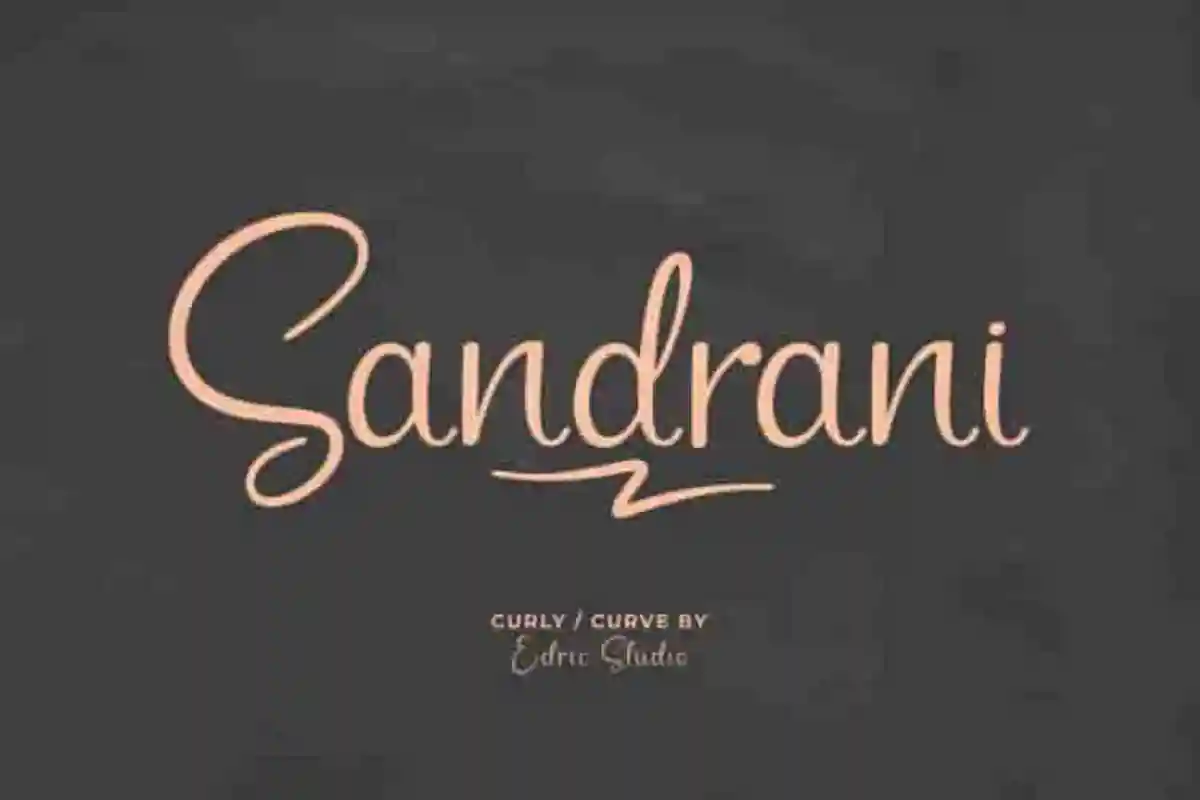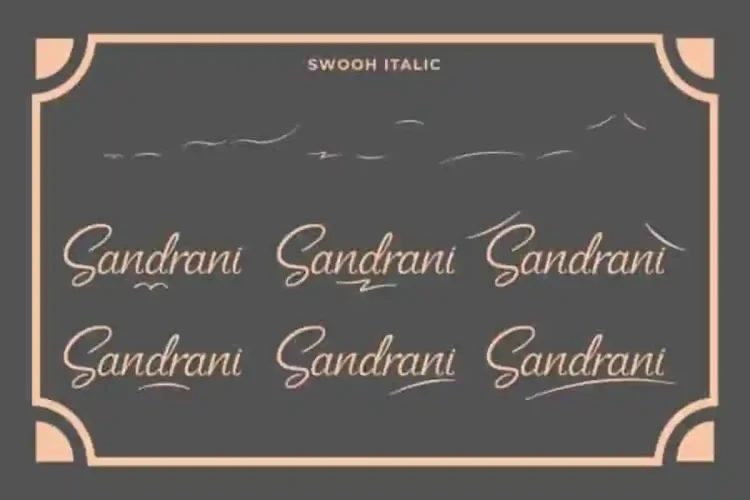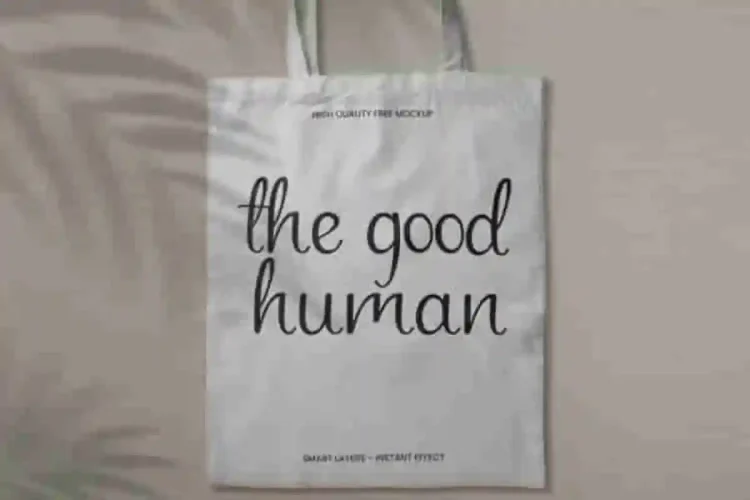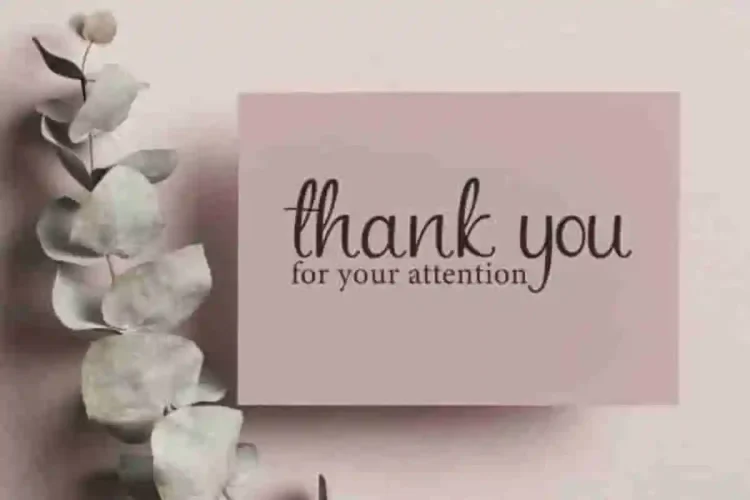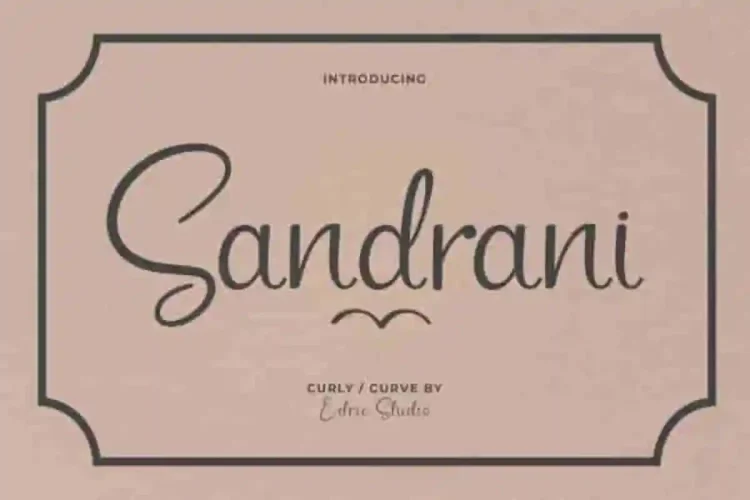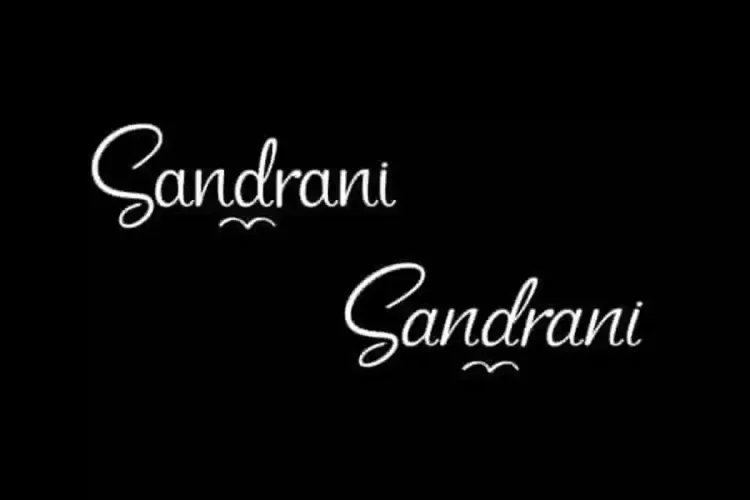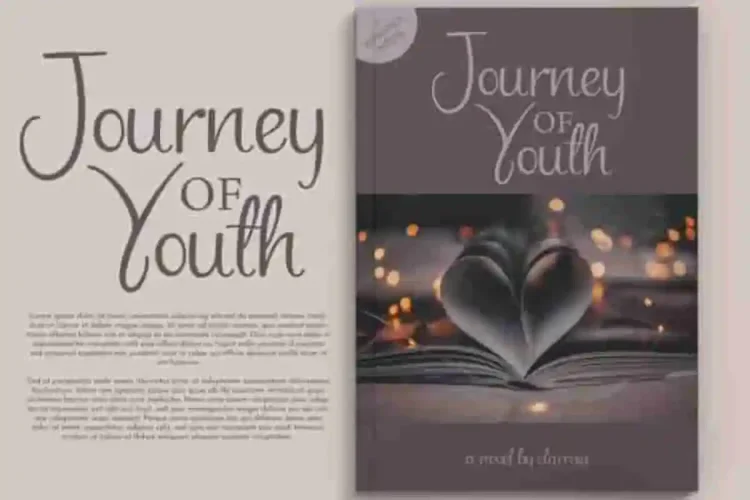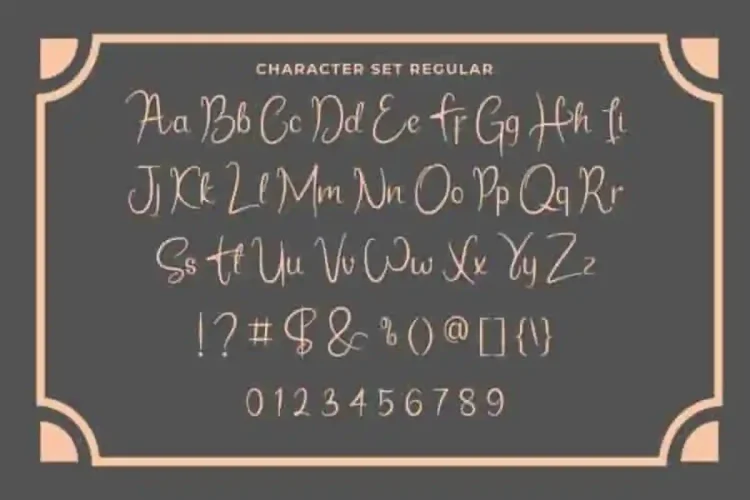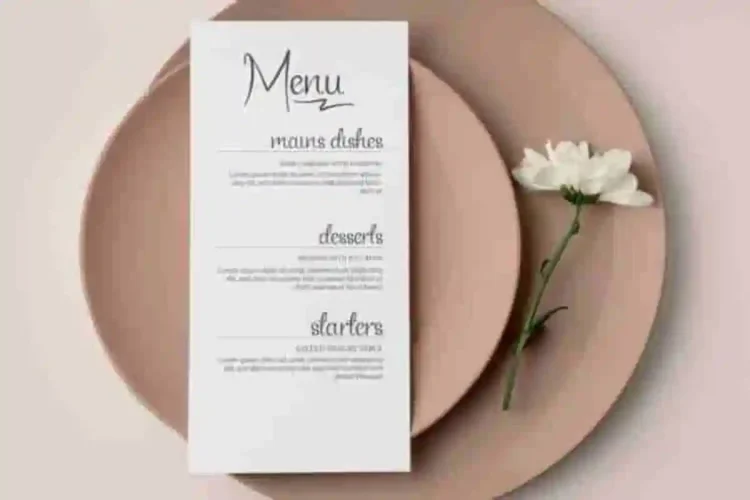
Sandrani Handwritting Signature Font
Sandrani Handwritting Font is a curly font script with simple handwriting style, handcrafted from our Studio here in Indonesia. Sandrani Handwriting Font with its natural flow, stylish curves, and well-balanced spacing, Sandrani brings sophistication and charm to any project. The theme style of this font is simple. elegant,  sophisticated, stylish, clean and classic signature style.
Sandrani Handwritting Signature Font has two style options : Regular and Italic. The font will be great for any projects (with extended license) including : branding, logo, stationery, business card, signage, flyer, brochure etc.